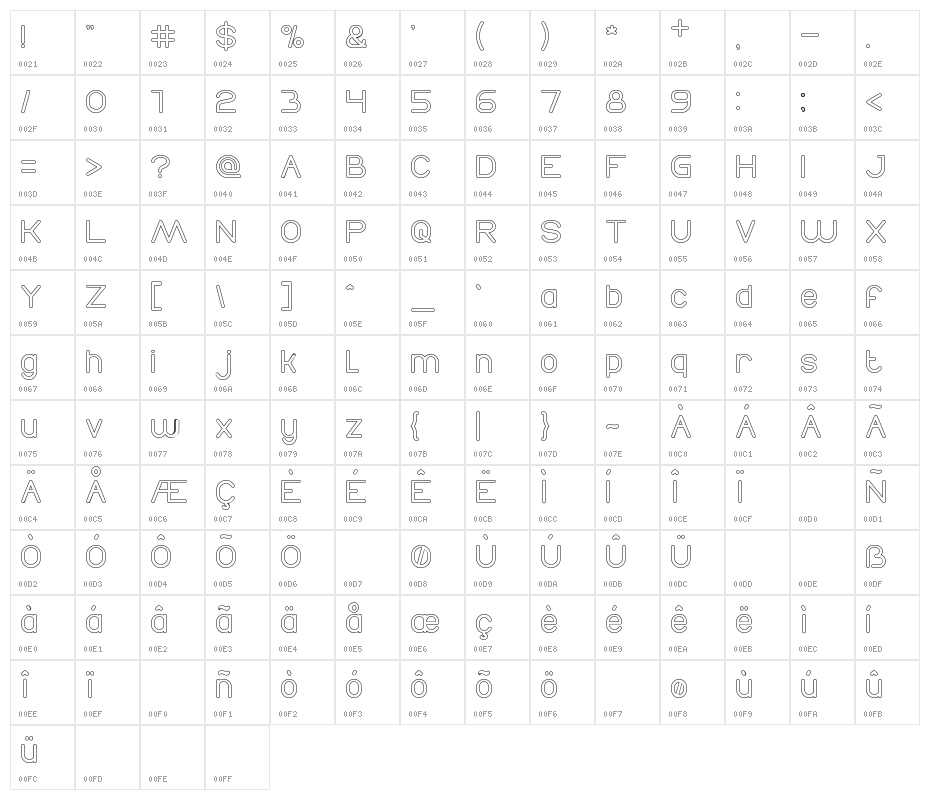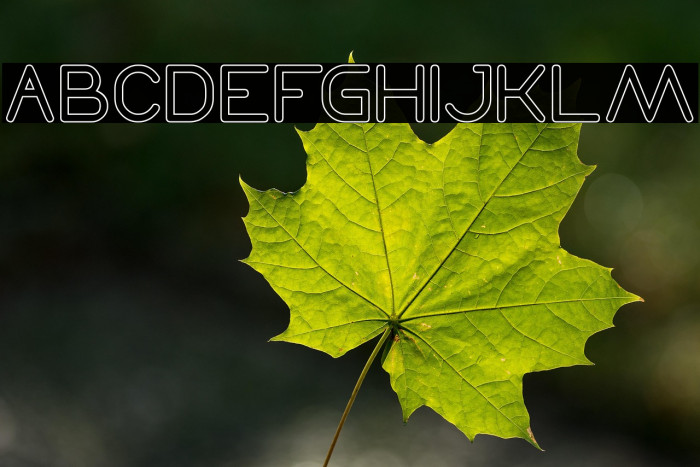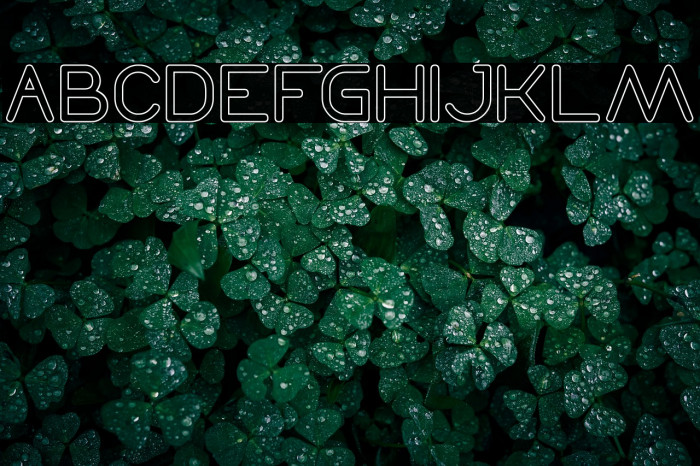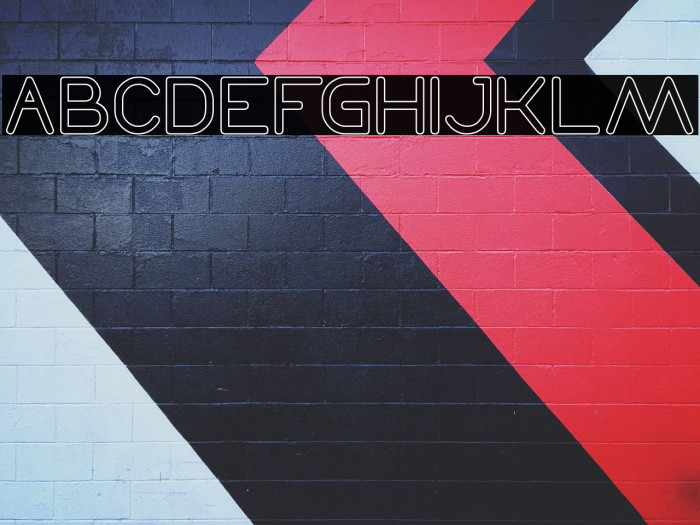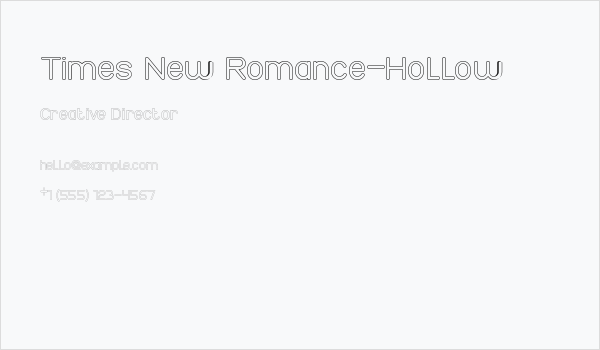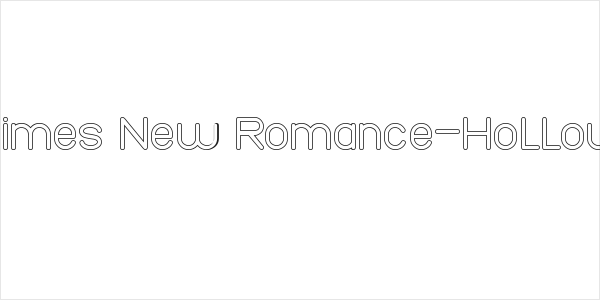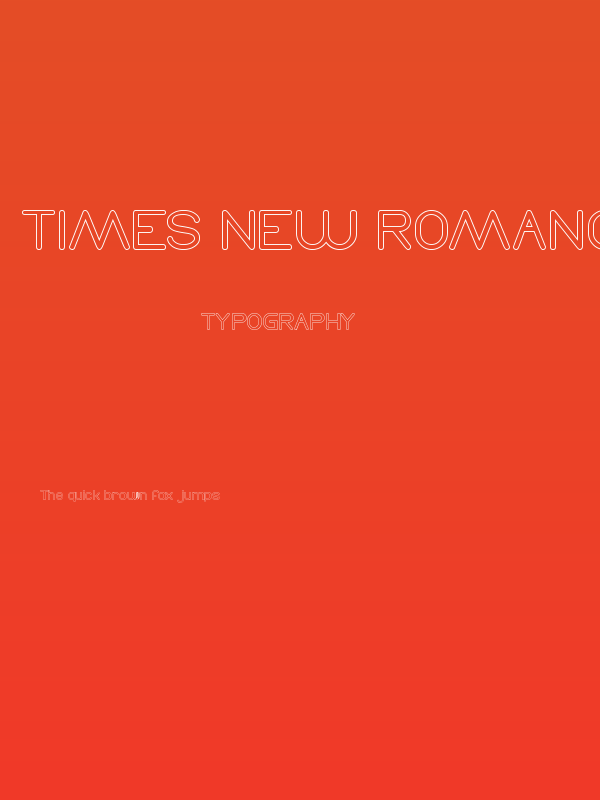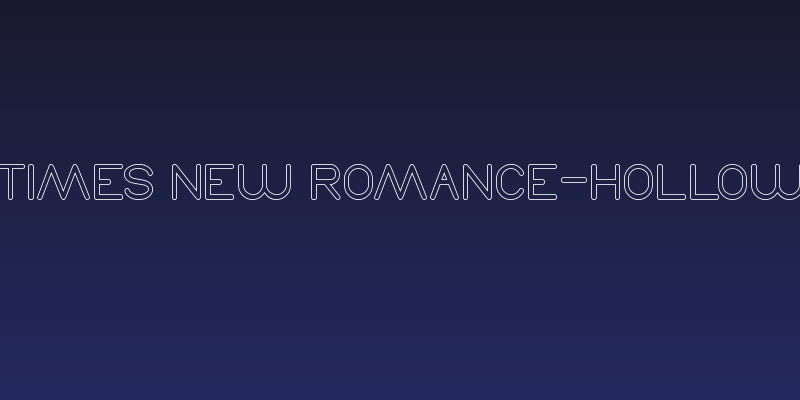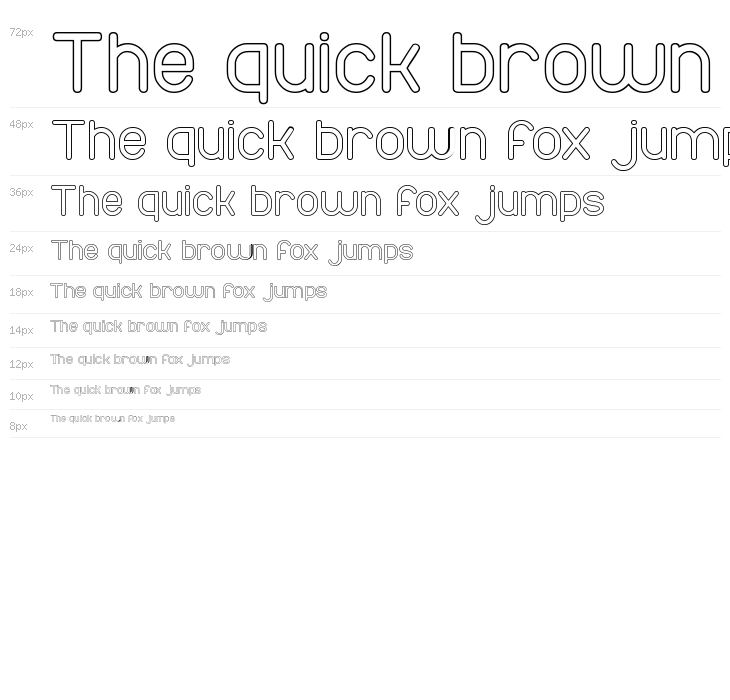
Times New Romance-Hollow Font
Times New Romance-Hollow Description
This font features a hollow, outlined design that gives it a modern and airy appearance. The characters are formed with consistent line thickness, creating a clean and geometric look. The uppercase and lowercase letters maintain a uniform style, with rounded edges that contribute to a friendly and approachable feel. The numerals and special characters follow the same design principles, ensuring consistency across all glyphs. This font's open and spacious design makes it suitable for projects that require a contemporary and minimalist aesthetic.
| Proposed Projects | Ideal for branding, posters, headlines, and digital media where a modern and minimalist look is desired. |